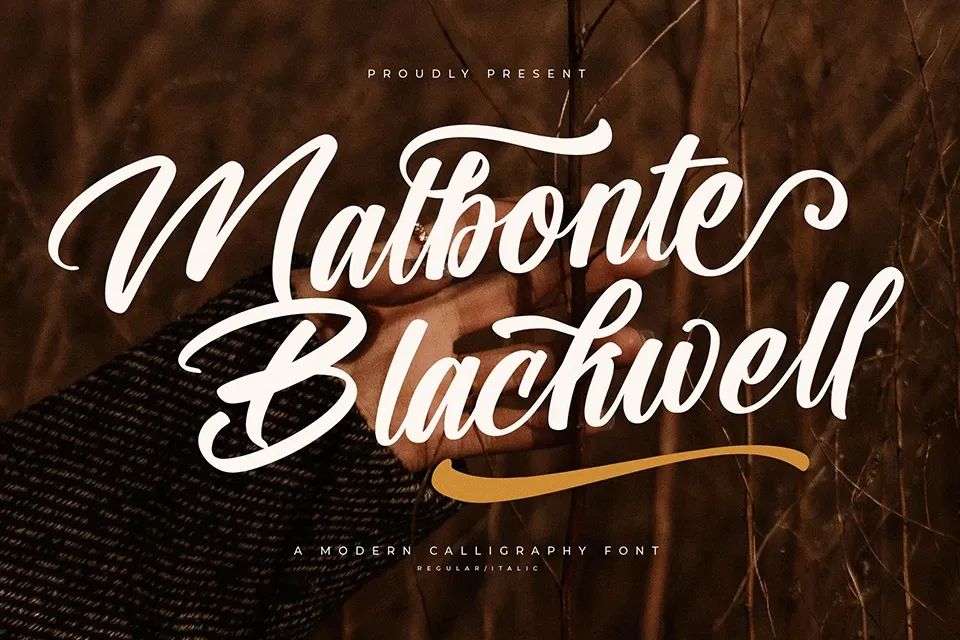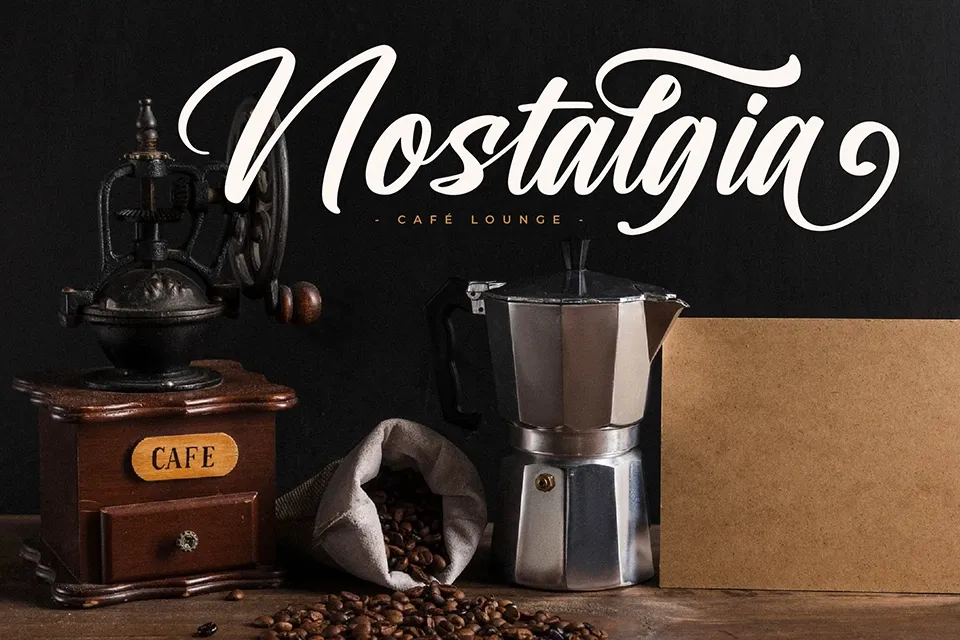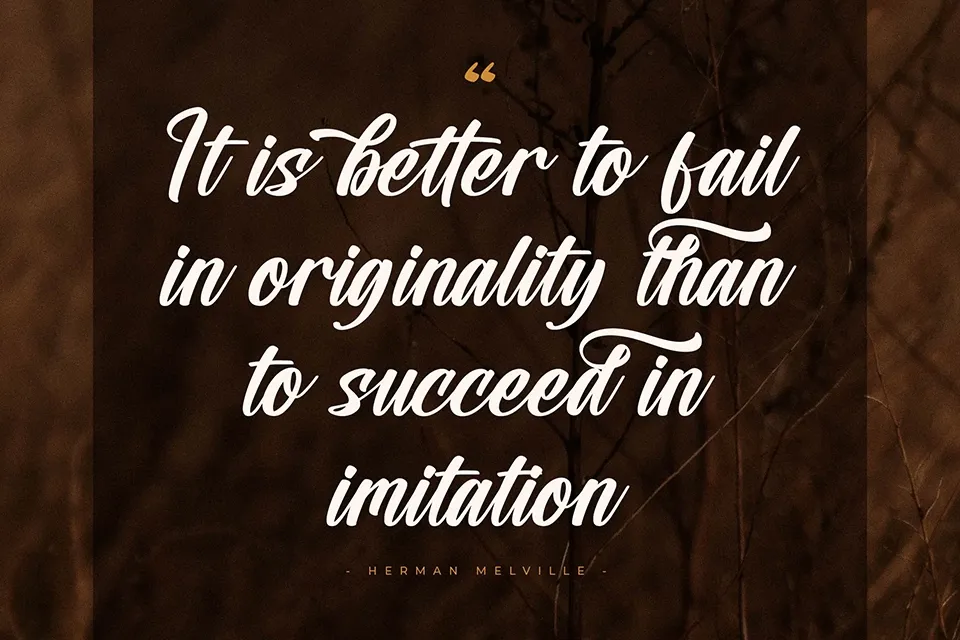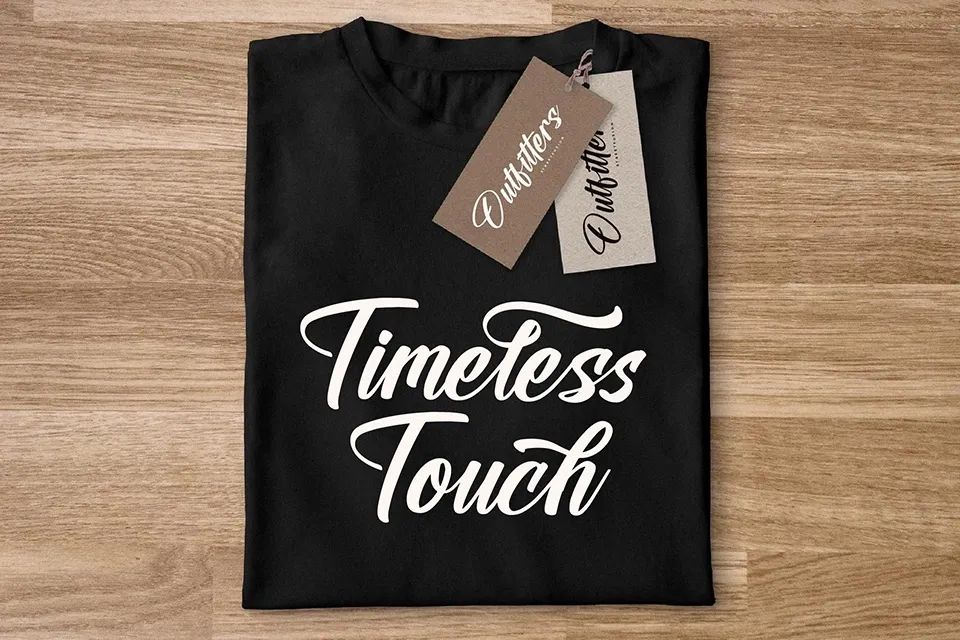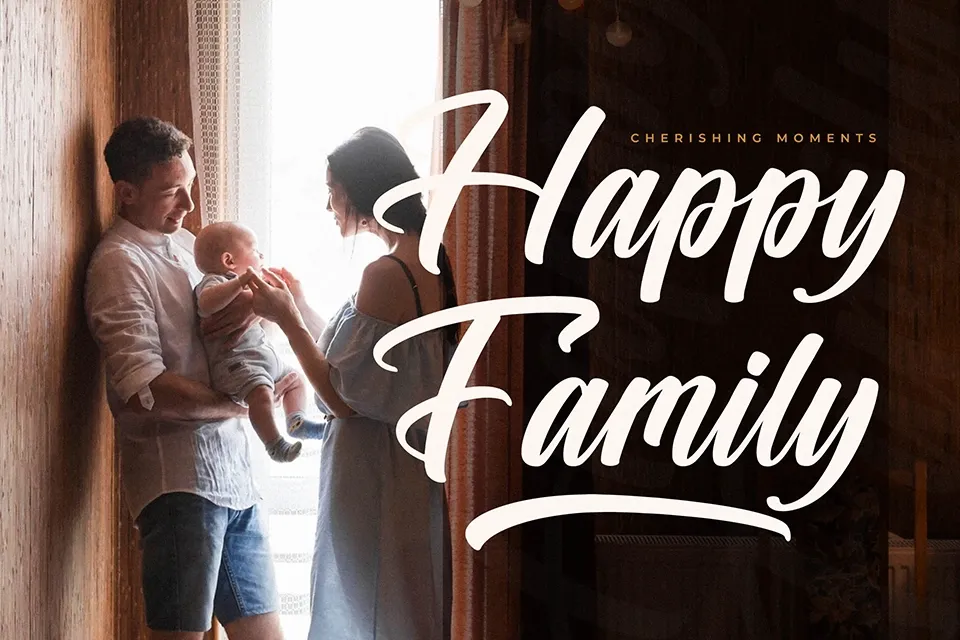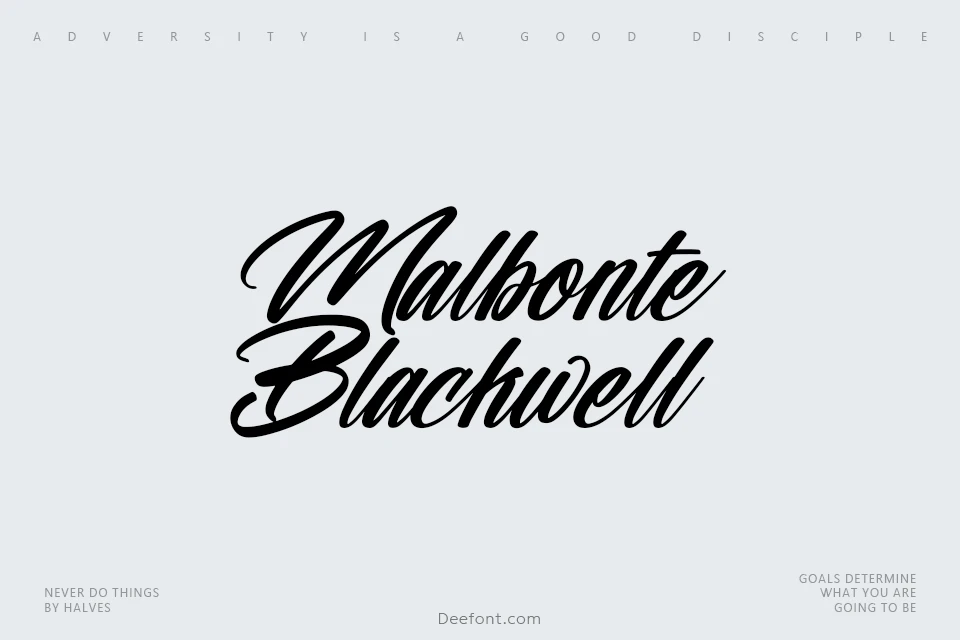
Malbonte Blackwell Font
Malbonte Blackwell Font is a modern calligraphy font with a cool and trendy handwritten style. It looks beautiful on a variety of designs requiring a personalized touch, such as wedding invitations, thank you cards, greeting cards, logos, branding projects, and homeware designs. Let your creativity shine with this elegant and versatile script font.